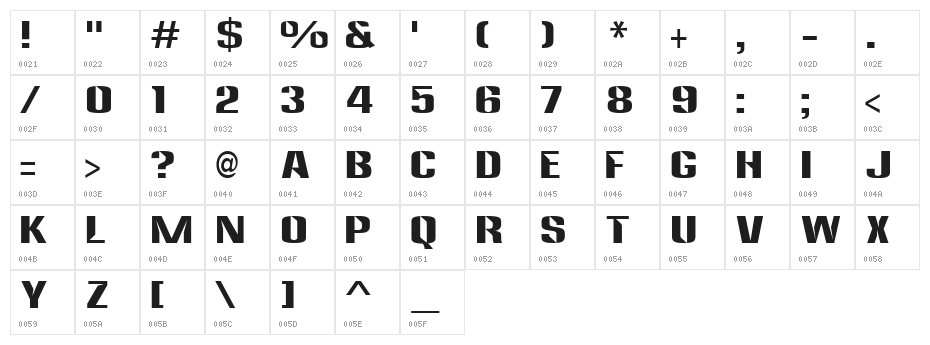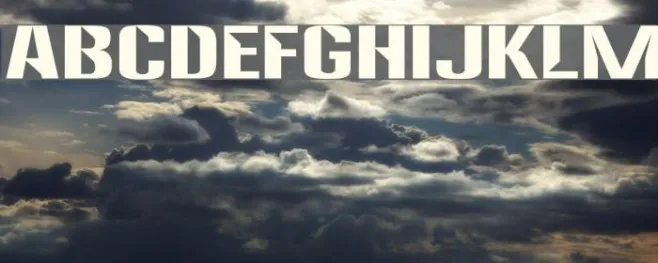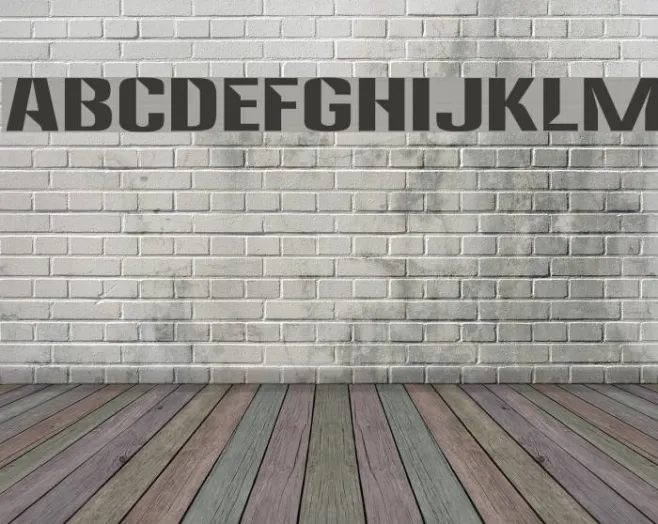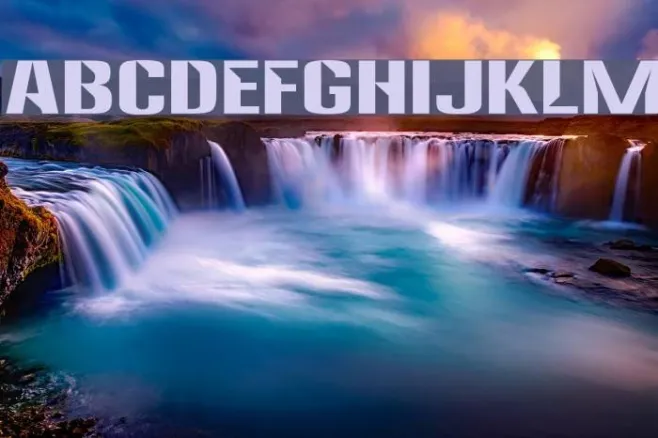
Anklepants Font
Anklepants Description
This font features a bold and impactful design with strong geometric shapes and sharp angles. The uppercase letters are particularly striking, with a consistent thickness that conveys strength and stability. The lowercase letters maintain the same boldness, ensuring readability and uniformity across different text sizes. Numbers and special characters are designed to match the robust style of the alphabet, making them suitable for attention-grabbing headlines and titles. The overall design is modern and assertive, ideal for projects that require a commanding visual presence.